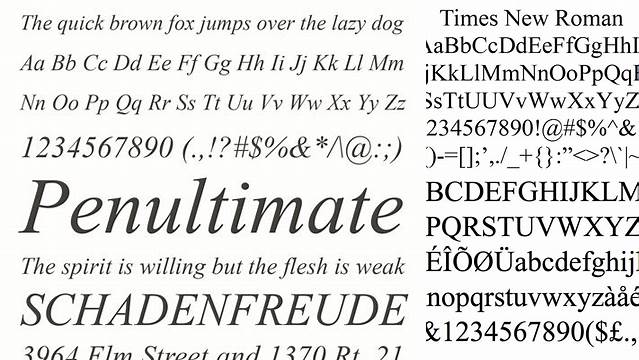
Times New Roman Fonts: Find Alternatives On DaFont
Hey guys! Ever wondered about that super classic font you see everywhere? Chances are, it’s Times New Roman! And if you're on the hunt for it or similar styles on DaFont, you've come to the right place. Let's dive deep into why Times New Roman is so popular, where you can find it, and what alternatives you might like.
What is Times New Roman?
Times New Roman is a serif typeface commissioned by The Times newspaper in London in 1931. Designed by Stanley Morison and Victor Lardent, it quickly became one of the most popular and influential typefaces in history. Its creation was spurred by critiques of the newspaper's previous font, which was deemed outdated and hard to read. The goal was to create a typeface that was both legible and space-efficient, allowing more text to fit on a page without sacrificing readability.
The design of Times New Roman is rooted in classical typography, drawing inspiration from fonts like Plantin. However, it incorporates several unique features that set it apart. The high contrast between thick and thin strokes gives it a refined appearance, while its relatively condensed letterforms make it ideal for narrow columns of text. The serifs, or small decorative strokes at the ends of the letterforms, enhance readability by guiding the eye along the lines of text. Over the years, Times New Roman has undergone several revisions and adaptations to suit different printing technologies and design trends. Despite these changes, it has retained its fundamental characteristics and remains instantly recognizable. Its enduring popularity is a testament to its timeless design and versatility, making it a staple in both print and digital media.
Why is Times New Roman So Popular?
Times New Roman's popularity stems from several key factors. First and foremost, its legibility is unmatched. The clear, well-defined characters make it easy to read in various sizes and formats, which is crucial for everything from books to websites. Secondly, it has a classic, professional appearance. This makes it a safe choice for formal documents, academic papers, and business communications where credibility is essential. The font doesn't scream for attention but quietly does its job, conveying information effectively.
Another reason for its widespread use is its availability. For many years, Times New Roman was a default font on Microsoft Windows, making it readily accessible to virtually anyone with a computer. This ubiquity has cemented its place in the collective consciousness, making it a familiar and trusted option for users worldwide. Moreover, its space-efficiency is a major advantage. The condensed letterforms allow more text to fit on a page or screen, which is particularly valuable in print media where space is limited. This efficiency doesn't come at the expense of readability; rather, it enhances it by maintaining a balanced and harmonious appearance. Furthermore, Times New Roman has a neutral tone. It doesn't inject much personality into the text, which can be a good thing in contexts where objectivity is paramount. Its simplicity allows the content to take center stage without being overshadowed by the typeface. In summary, Times New Roman's enduring popularity is a result of its legibility, professional appearance, widespread availability, space-efficiency, and neutral tone, making it a reliable choice for a wide range of applications.
Finding Times New Roman on DaFont
When searching on DaFont, use keywords like "serif," "roman," "classic," or "newspaper" to find typefaces that resemble Times New Roman. Browse through the results, paying attention to the font previews. Look for fonts with similar characteristics: a high contrast between thick and thin strokes, serifs (the little feet at the end of the letters), and a generally formal appearance. Some fonts might even be explicitly described as being inspired by Times New Roman, which can be a great starting point. Don't hesitate to download and test out a few different options to see which one works best for your project. Remember to check the license agreement for each font to ensure it's suitable for your intended use, whether it's for personal projects, school assignments, or commercial work. While you might not find the exact Times New Roman, you'll likely discover a worthy substitute that captures its essence and fits your needs perfectly.
Alternatives to Times New Roman on DaFont
If you're exploring alternatives to Times New Roman on DaFont, you're in for a treat. There are numerous fonts that capture a similar aesthetic while offering their unique twist. Here are a few types to consider:
- Lora: A well-balanced serif typeface with roots in calligraphy. Its contemporary feel makes it a solid choice for online content.
- Arvo: With slab-serif style, Arvo has a slightly more geometric feel. Great for headlines and body text.
- Bitter: Designed specifically for screens, Bitter is highly readable and has a sturdy, reliable look.
- Playfair Display: If you're looking for something with a bit more flair, Playfair Display is a high-contrast serif that exudes elegance. Ideal for titles and headings.
When selecting an alternative, think about the specific project you're working on. For academic papers or formal documents, stick to fonts that closely mimic Times New Roman's neutrality and legibility. For creative projects or branding, you might have more freedom to experiment with fonts that have a stronger personality. Consider factors such as the font's weight, style (italic, bold), and overall appearance. Does it convey the right tone and message? Is it easy to read in the intended context? By carefully evaluating these factors, you can find an alternative that not only looks great but also enhances the effectiveness of your communication. Don't be afraid to mix and match different fonts to create visual interest, but always ensure that your choices are deliberate and cohesive. Ultimately, the best alternative is the one that best serves your needs and aligns with your creative vision.
By following these tips, you can ensure that your font choices enhance your message and create a positive user experience. Remember, typography is an essential element of design, so take the time to choose and use fonts wisely.